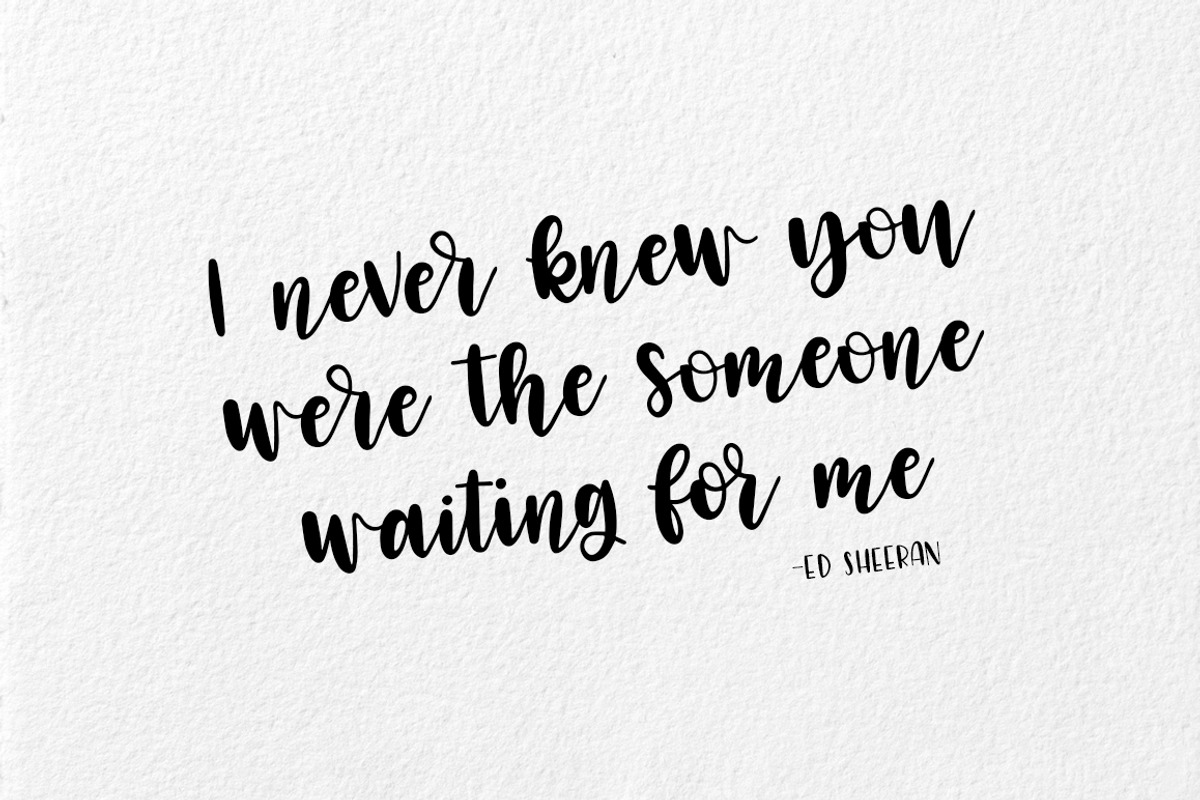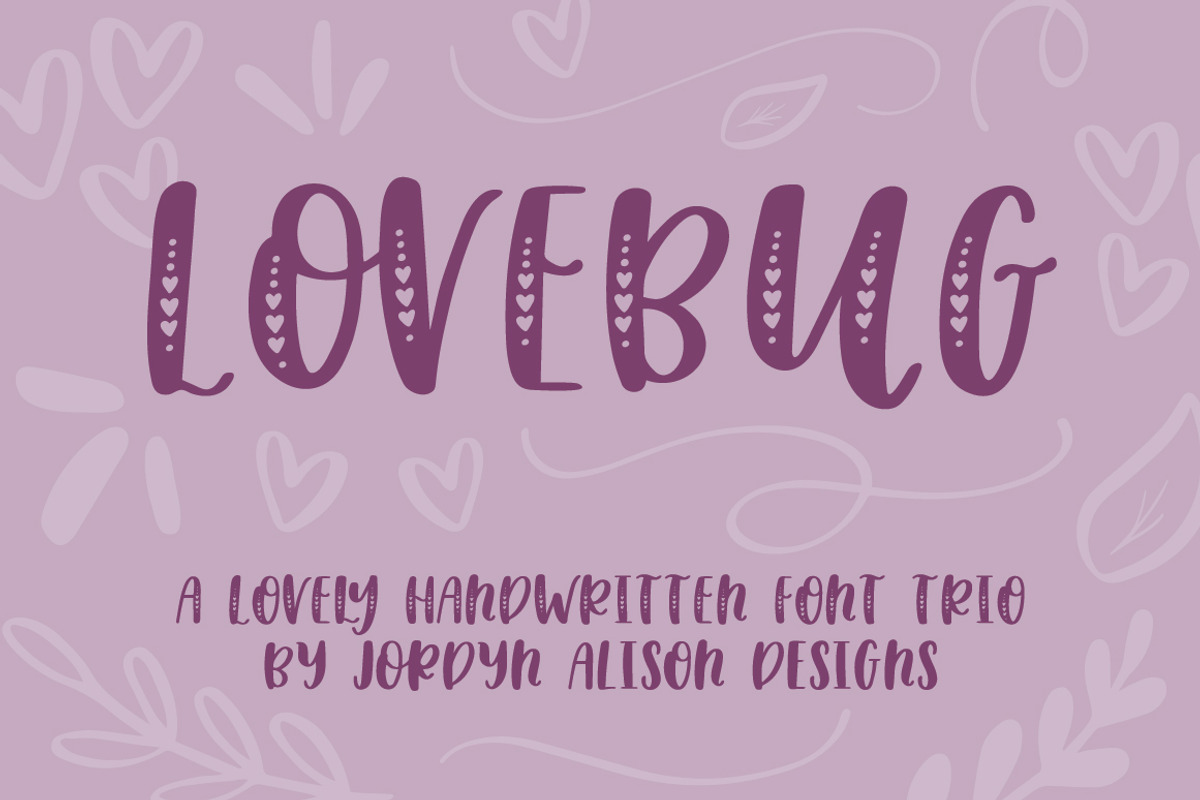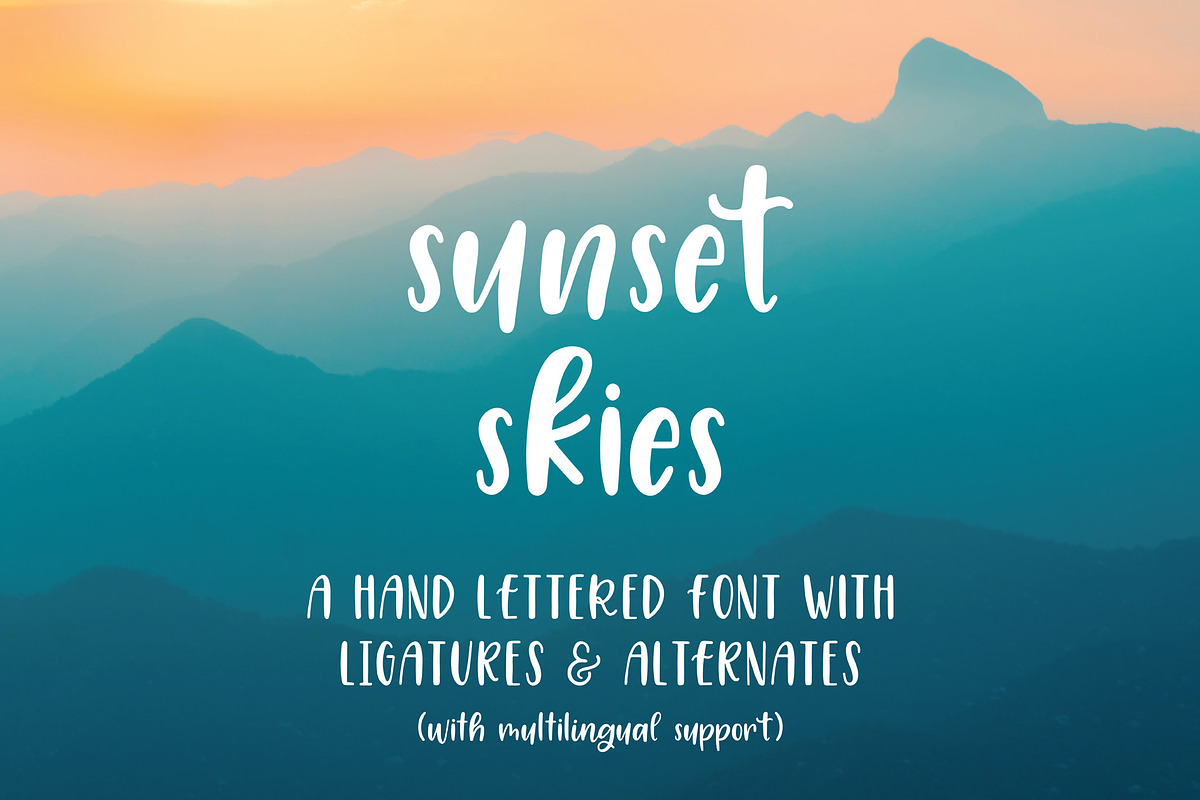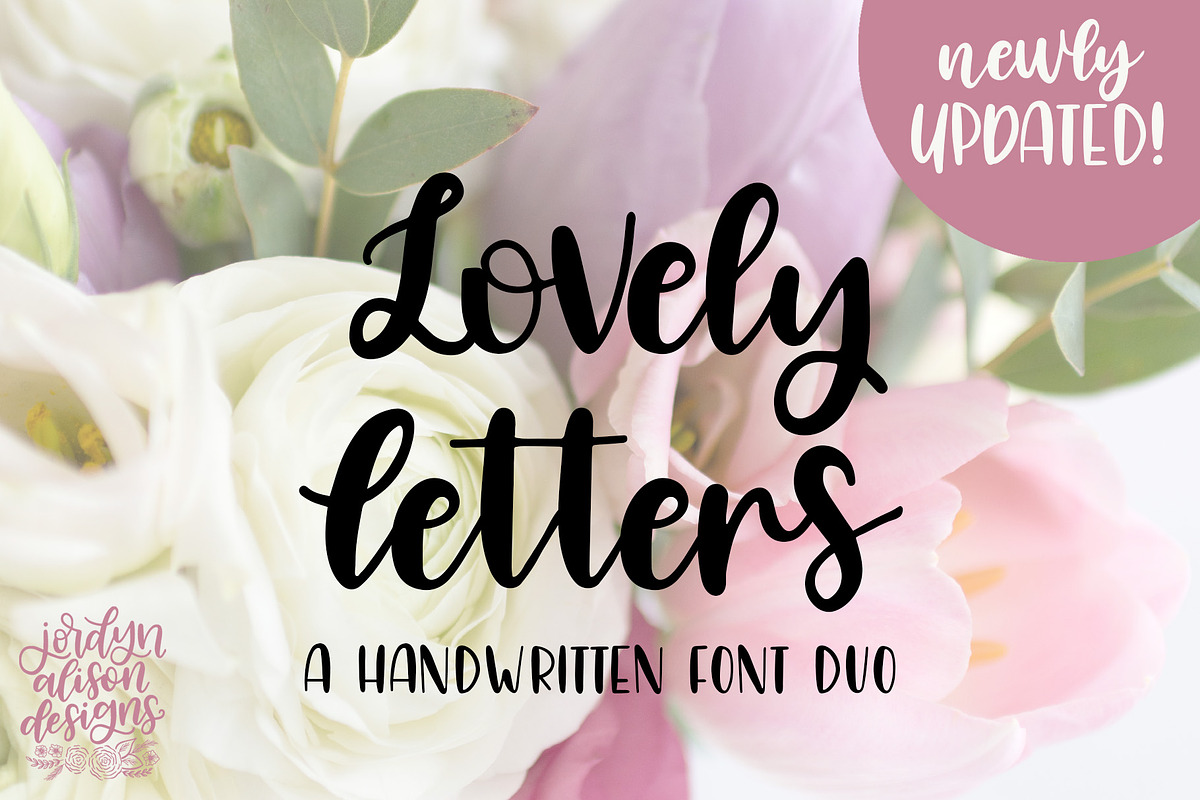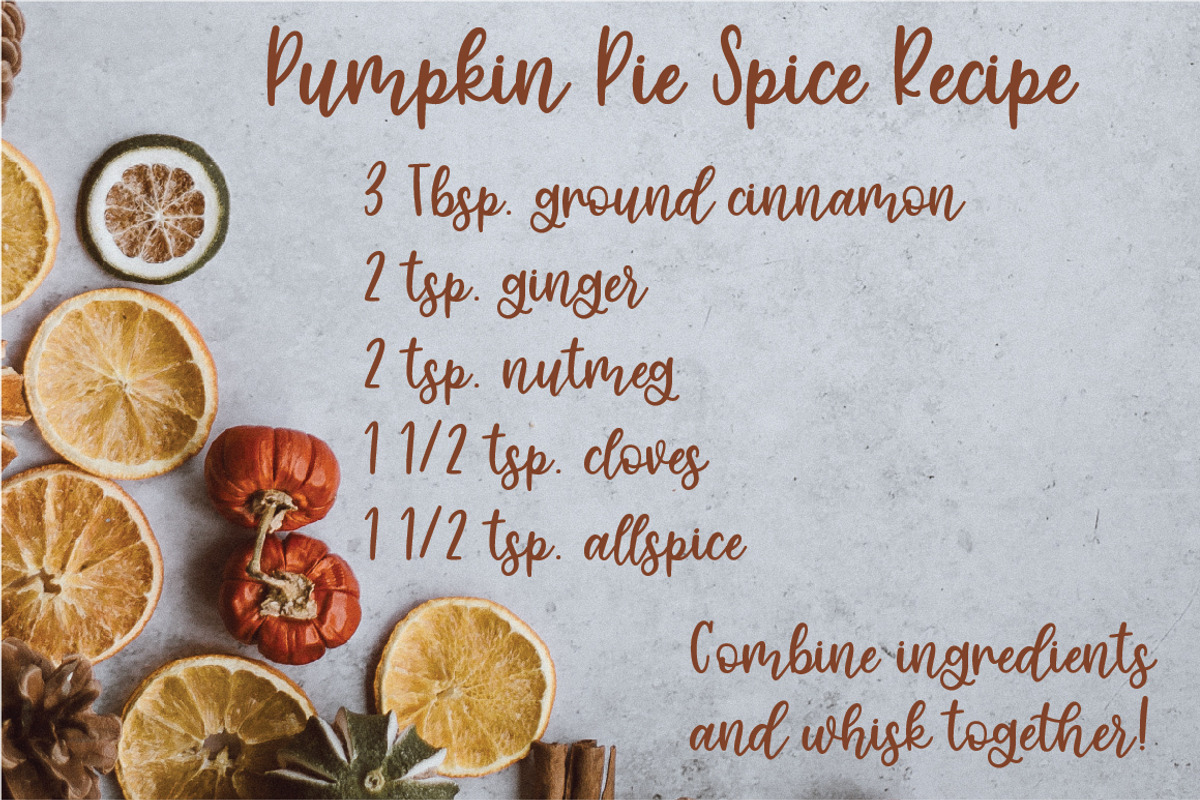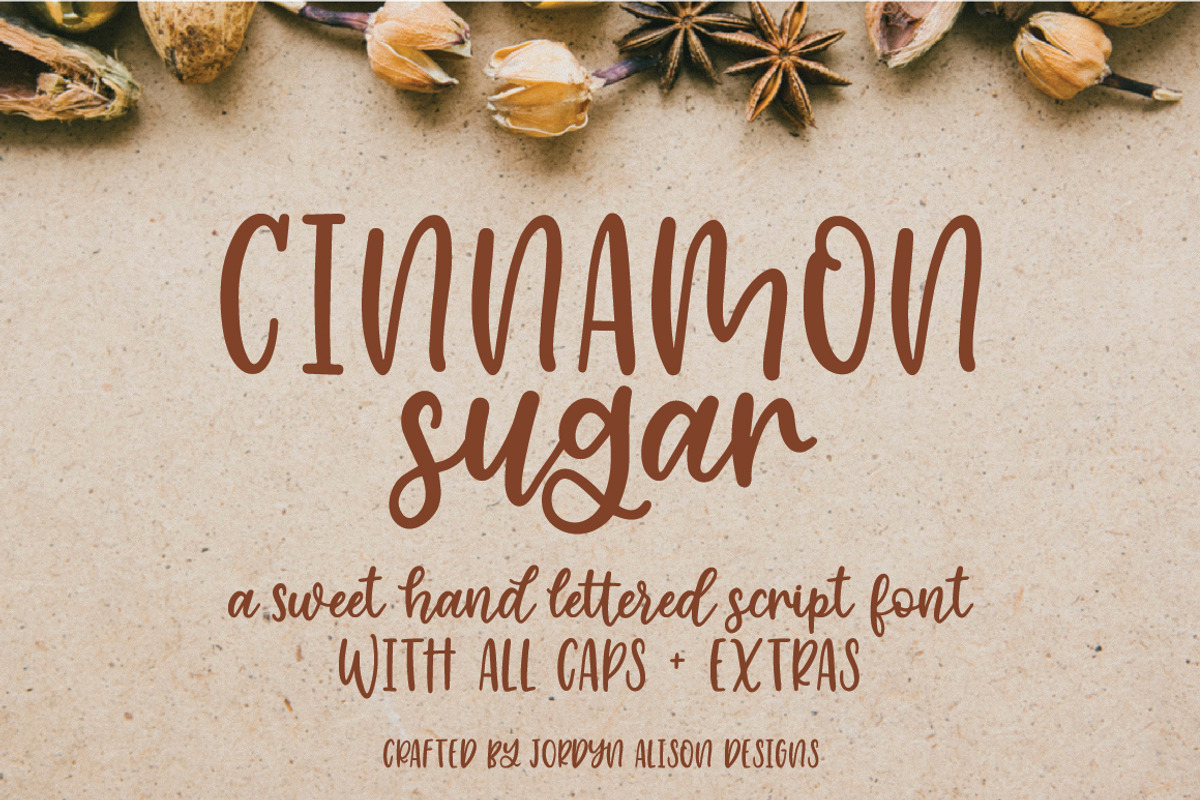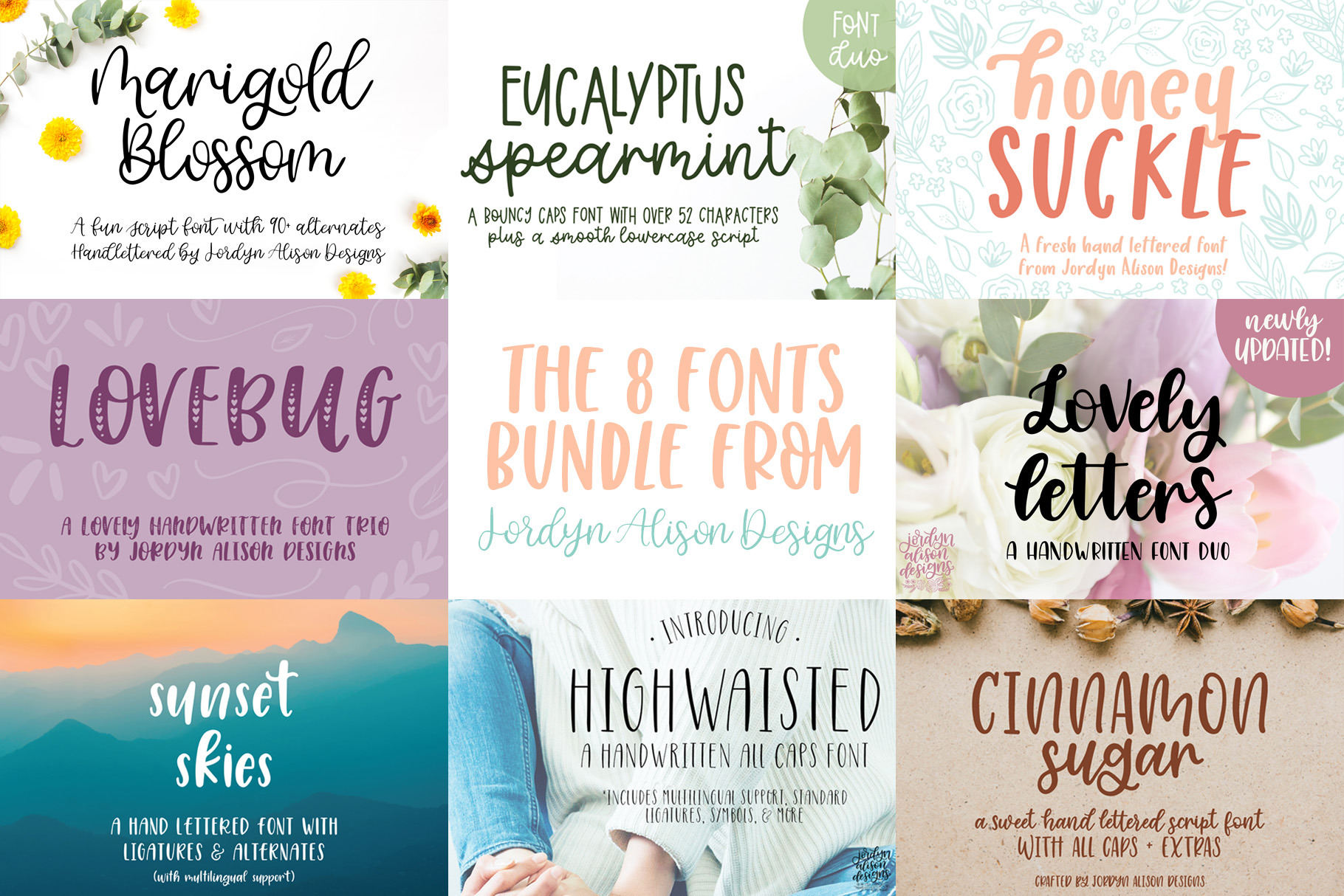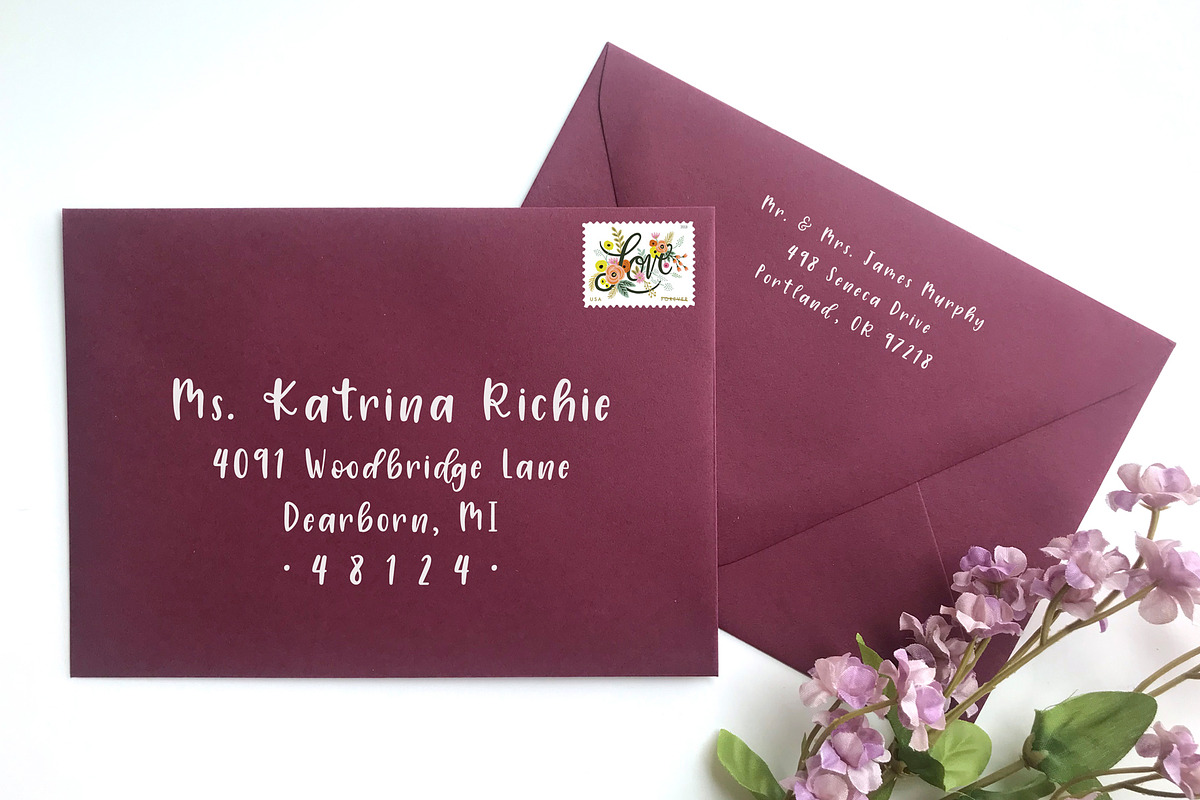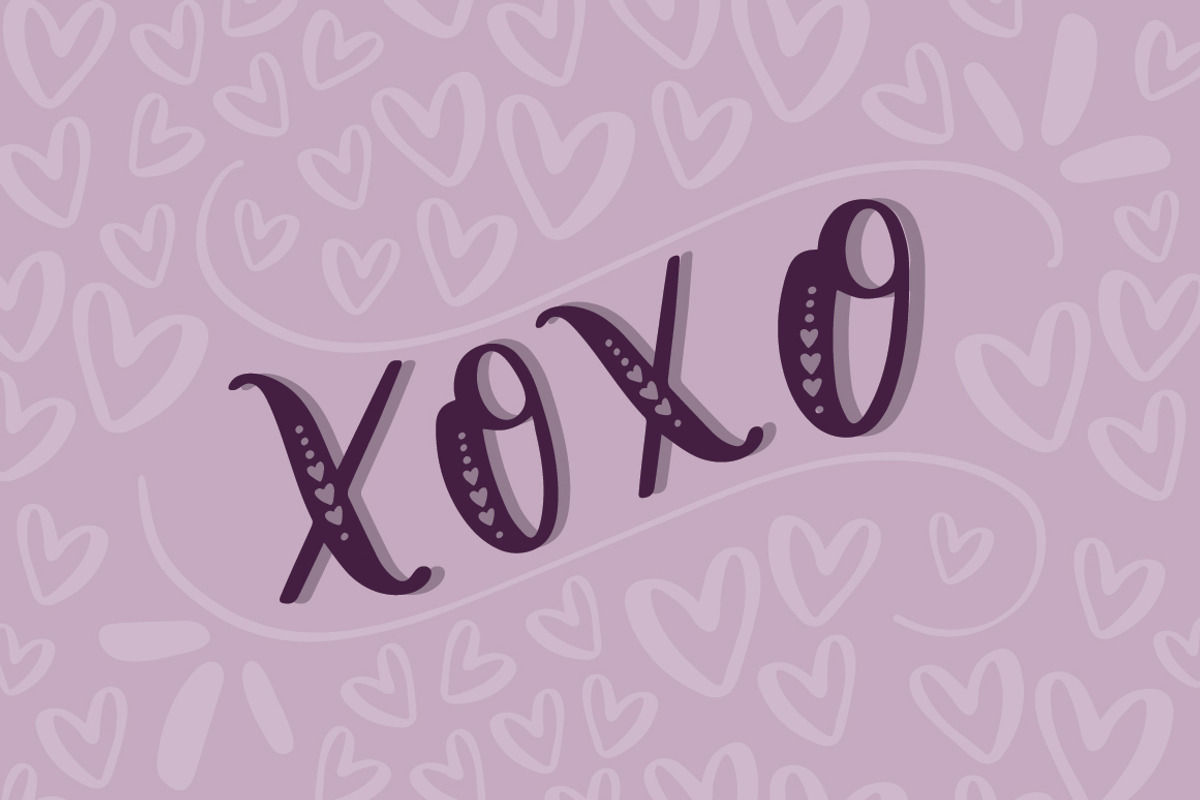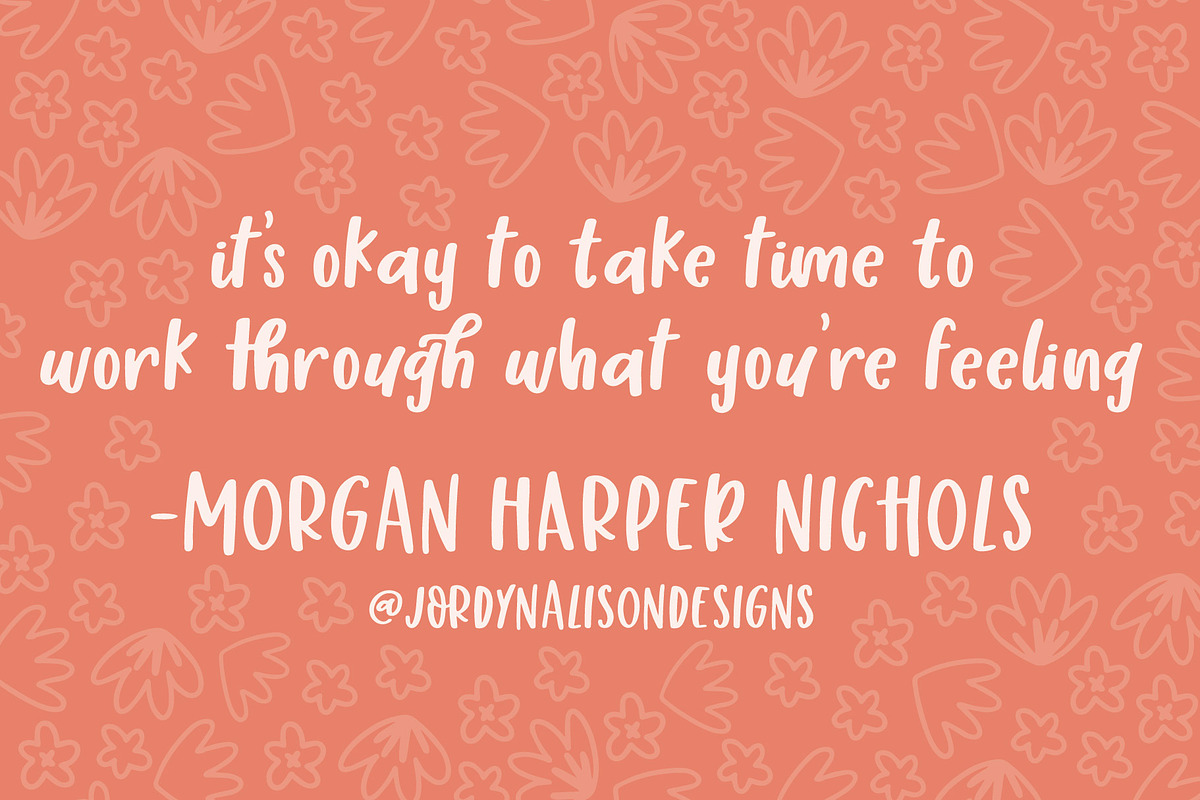
The 8 Fonts Bundle
Introducing the 8 Fonts Bundle from Jordyn Alison Designs! Bundle all 8 of my fonts together for more than 50% savings! All fonts from Jordyn Alison Designs are handlettered.